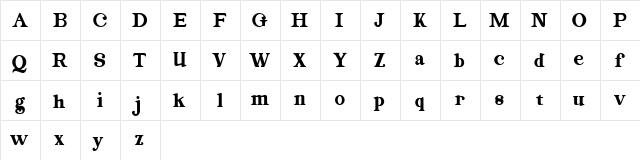
Magazine Regular
| Designer | Yesaya Amnestian |
Design Context for Magazine Typeface
Magazine offers clean, dependable letterforms without strong stylistic allegiance, making it a practical choice for designers who need flexibility.